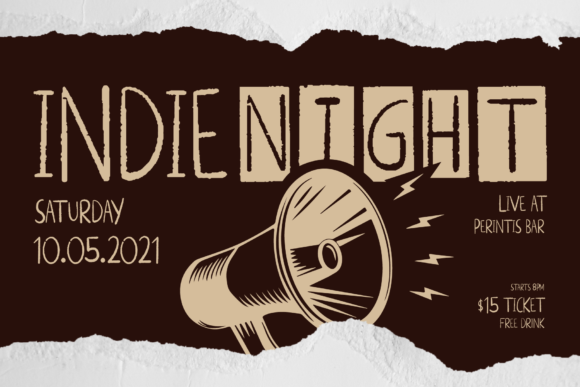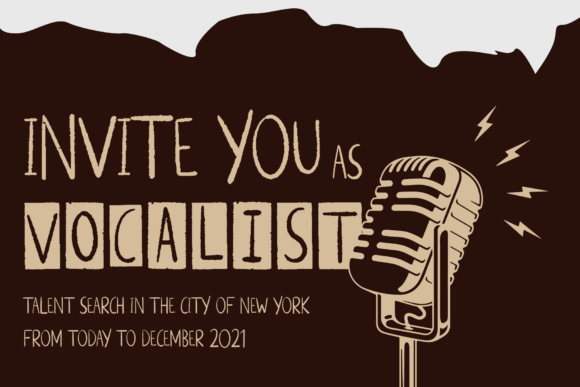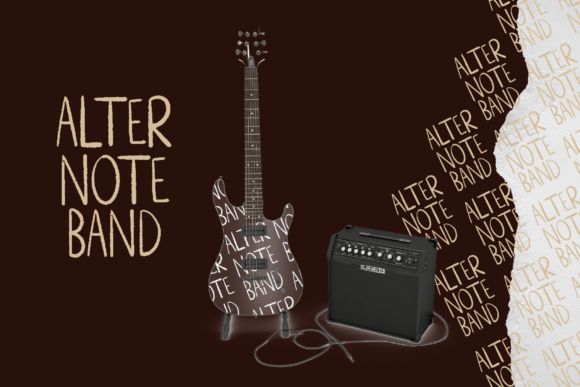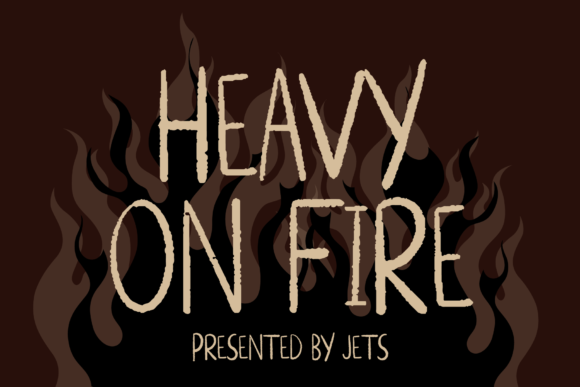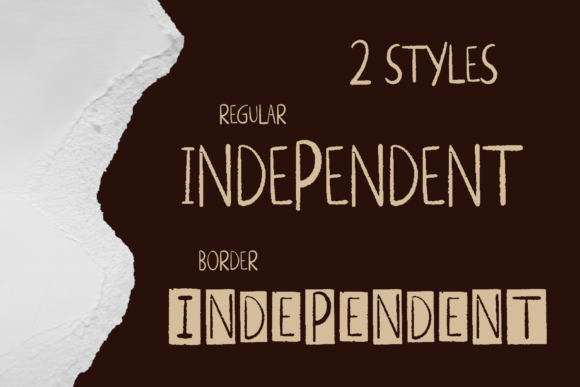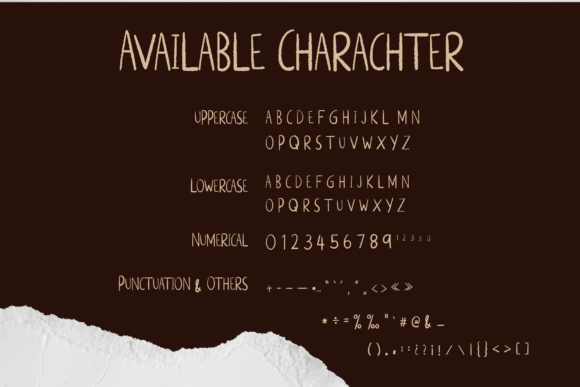
Unlock Your Creativity with Alternative Rock Font
Are you a designer, crafter, or DIY enthusiast looking for a unique and fun font to elevate your creative projects? Look no further than Alternative Rock Font, a modern hand-drawn font that’s perfect for adding a playful touch to your designs. In this article, we’ll explore the features and benefits of Alternative Rock Font, and show you how to make the most of this versatile and exciting font.
What is Alternative Rock Font?
Alternative Rock Font is a carefully crafted, hand-drawn font that’s designed to bring a fun and festival-like vibe to your creative projects. With its bold and playful lettering, this font is perfect for designers and crafters who want to add a touch of personality to their work. Whether you’re creating posters, flyers, crafts, or social media graphics, Alternative Rock Font is the perfect choice.
Key Features of Alternative Rock Font
- Hand-drawn design: Alternative Rock Font is a unique, hand-drawn font that’s been carefully crafted to give your designs a personal and playful touch.
Benefits of Using Alternative Rock Font
So why choose Alternative Rock Font for your creative projects? Here are just a few benefits of using this exciting font:
- Add a personal touch: With its hand-drawn design and playful lettering, Alternative Rock Font is the perfect way to add a personal touch to your designs.
- Stand out from the crowd: This font is unique and eye-catching, making it perfect for designers and crafters who want to stand out from the crowd.
- Perfect for festivals and events: Alternative Rock Font is designed to give your designs a fun and festival-like vibe, making it perfect for event posters, flyers, and social media graphics.
- Versatile: This font can be used for a wide range of creative projects, from crafting and DIY to graphic design and digital art.
| Font Name | Alternative Rock Font |
| Author | Jetsmax Studio |